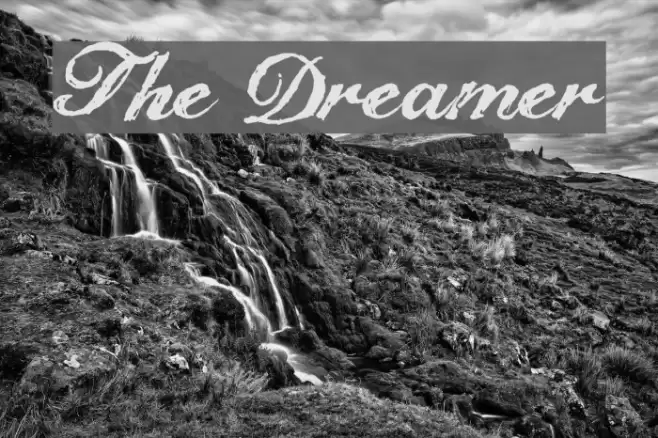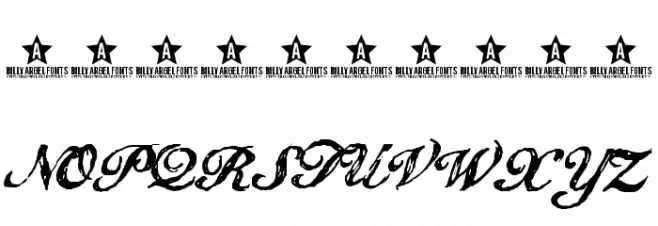
The Dreamer Font
The Dreamer Description
This font exudes a classic and elegant script style, characterized by its flowing, cursive letterforms. The strokes are smooth and connected, giving it a handwritten appearance. The uppercase letters are ornate, with flourishes that add a touch of sophistication. The lowercase letters maintain a consistent style, ensuring readability while retaining the decorative nature. The numbers and special characters are designed to match the overall aesthetic, making them suitable for a variety of uses. This font is perfect for projects that require a personal, elegant touch.
A classic, elegant script font with flowing, cursive letterforms from Uncategorized fonts.
- Proposed Projects: Ideal for wedding invitations, greeting cards, logos, and branding materials.
- Overall Style: Classic
- Use Case: Logos, Invitations, Decorative text